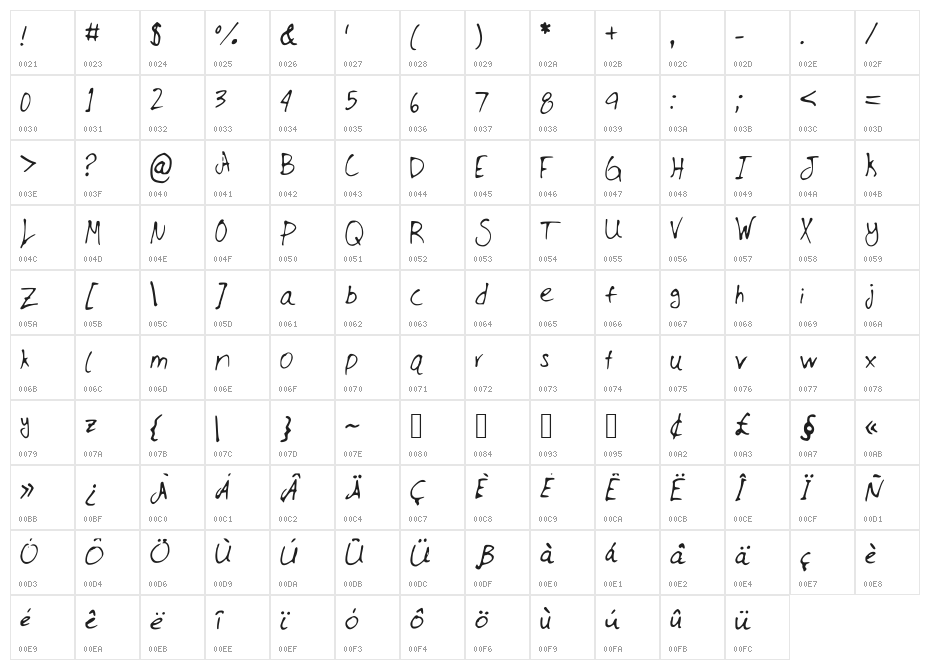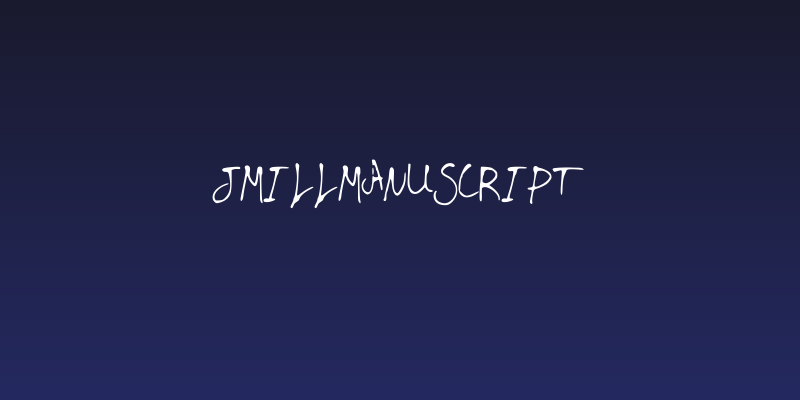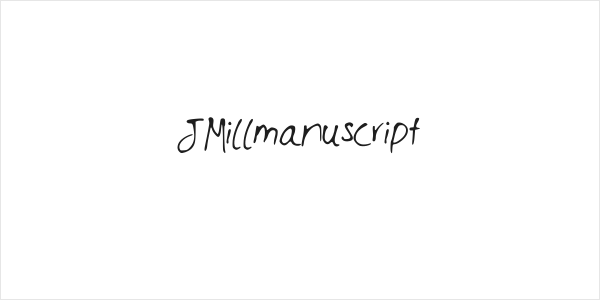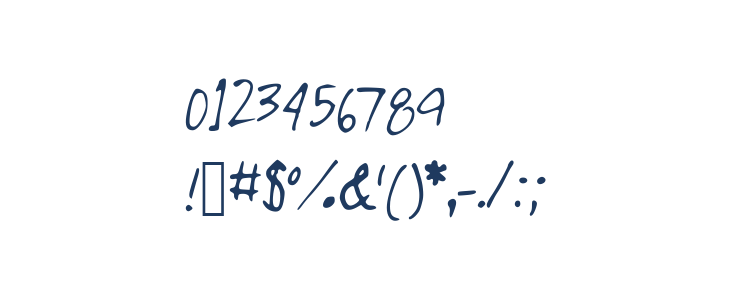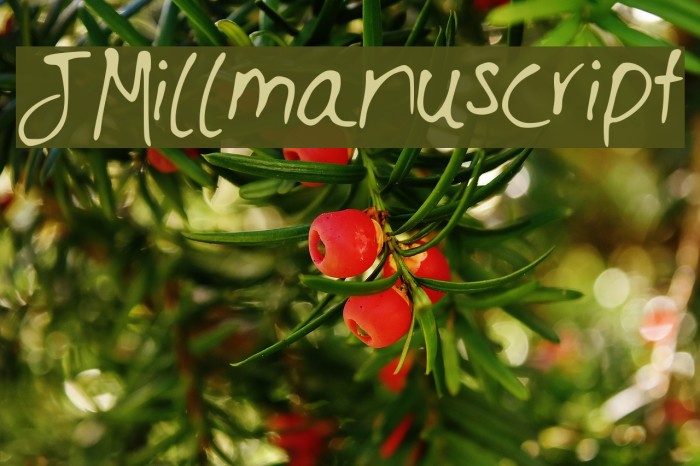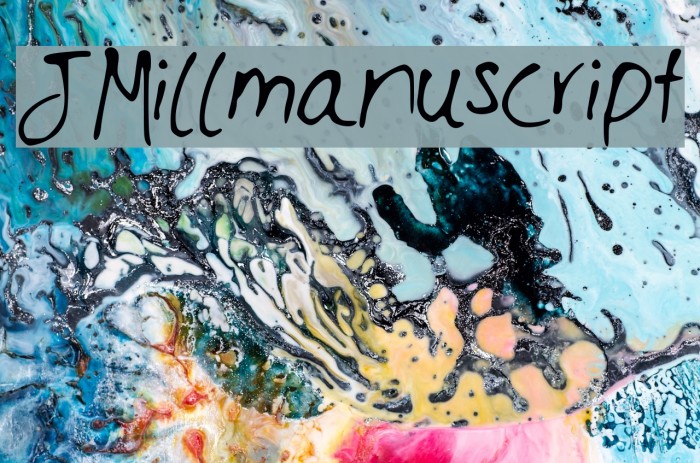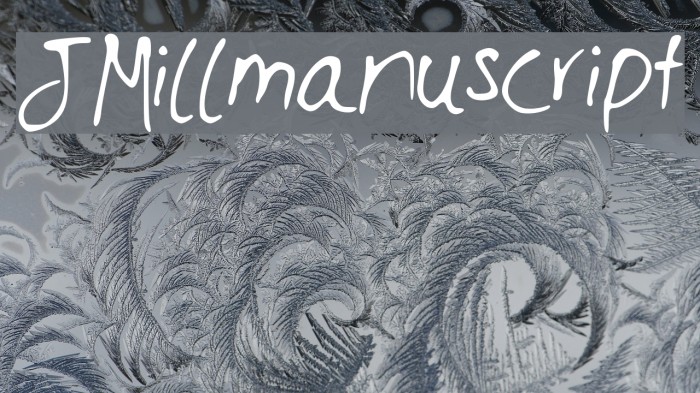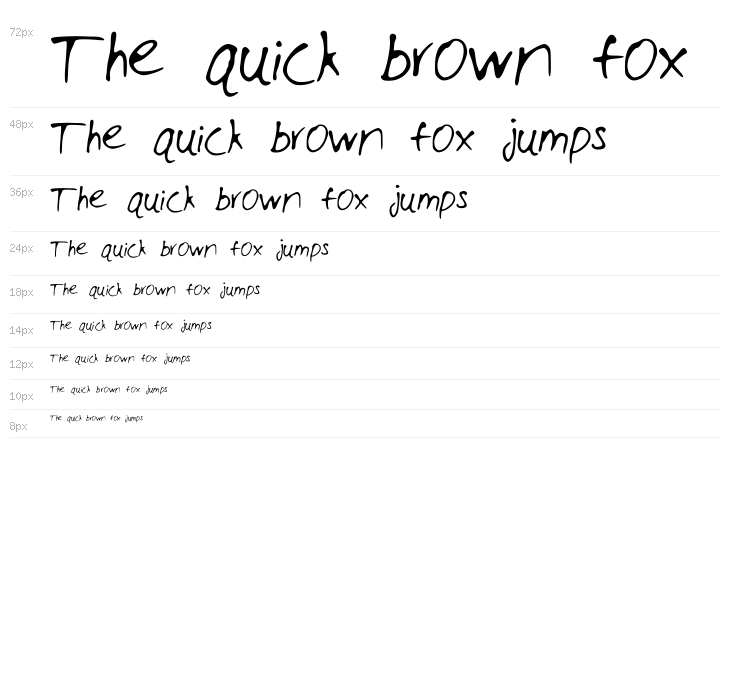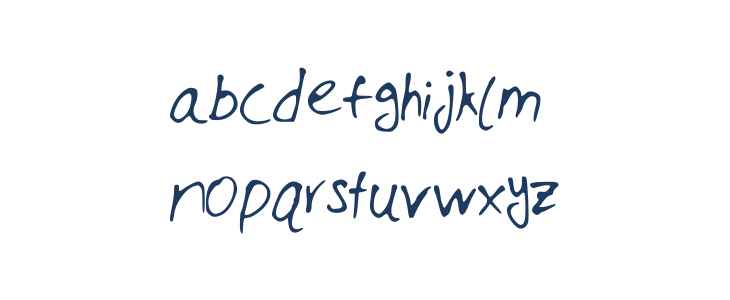
JMillmanuscript Font
JMillmanuscript Description
This font exudes a playful and casual handwritten style, reminiscent of a personal journal or informal note-taking. The characters are slightly irregular, giving them a natural and organic feel. The strokes vary in thickness, adding a dynamic and lively touch to the overall appearance. The uppercase letters are bold and prominent, while the lowercase letters maintain a consistent flow, enhancing readability. Numbers and special characters are crafted with the same whimsical flair, making them stand out without compromising legibility. This font is perfect for projects that require a personal, approachable, and friendly tone.
JMILLMANUSCRIPT UPPERCASE
JMILLMANUSCRIPT LOWERCASE
JMILLMANUSCRIPT OTHER CHARS